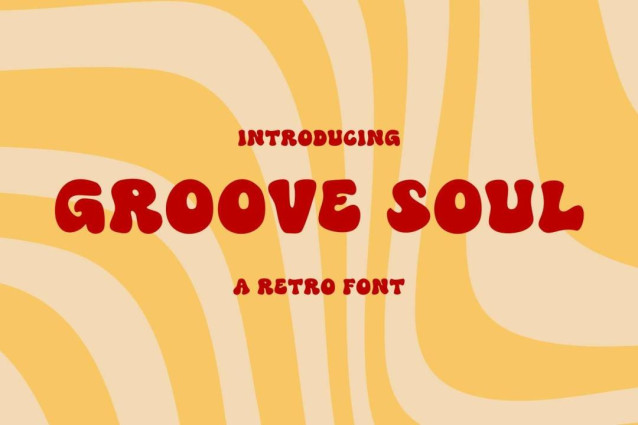
Groove Soul Font
Groove Soul Font An attractive retro cartoon font that effortlessly conveys the quirky charm of classic cartoon aesthetics, this font pays homage to the golden age of animation with playful curves and vibrant character. Each letter exudes a nostalgic feel reminiscent of classic comics and cartoon shows, making it an ideal choice for projects looking for a vintage touch.